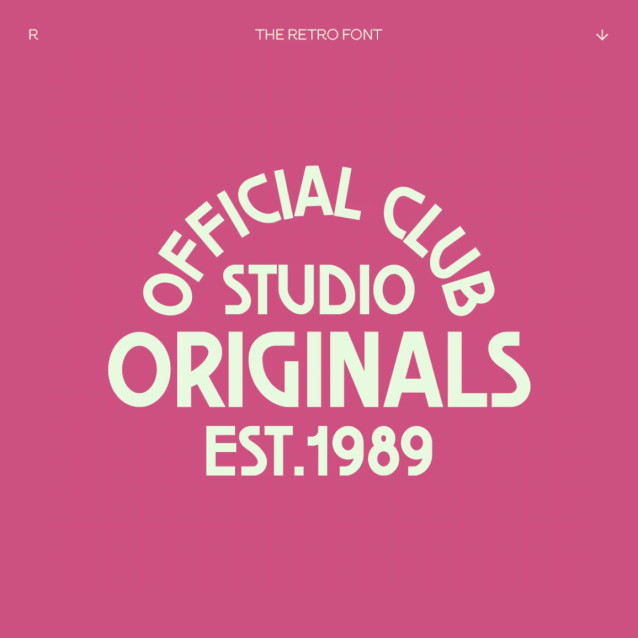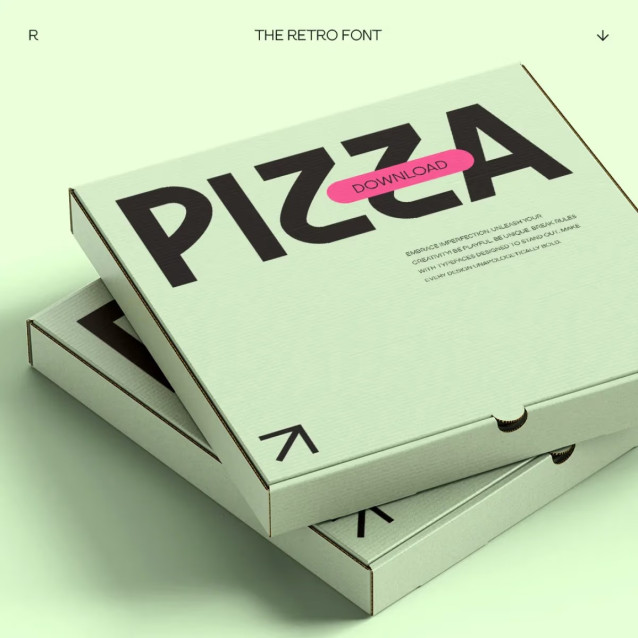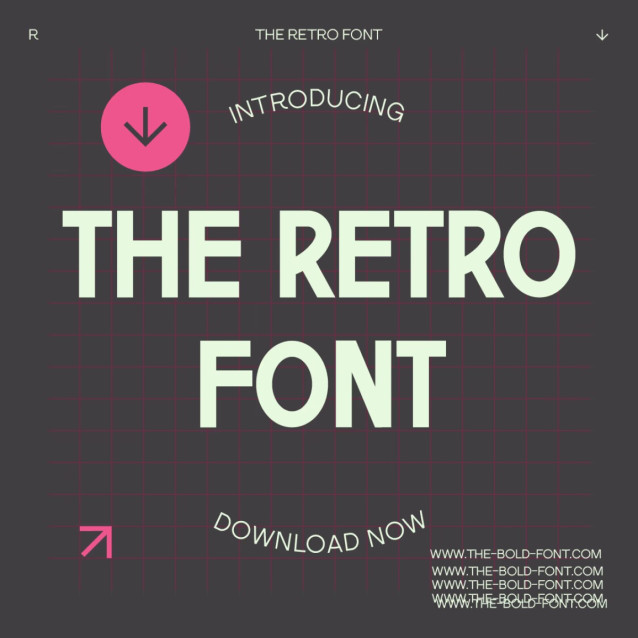
The Retro Font
The Retro Font – A French Art Nouveau-inspired condensed vintage typeface. With its clean lines and modern appeal, this font is sure to turn heads and leave a lasting impression. Perfect for headlines, logos, and any design that demands attention. It is both functional and stylish, making it a versatile choice for a wide range of design projects.